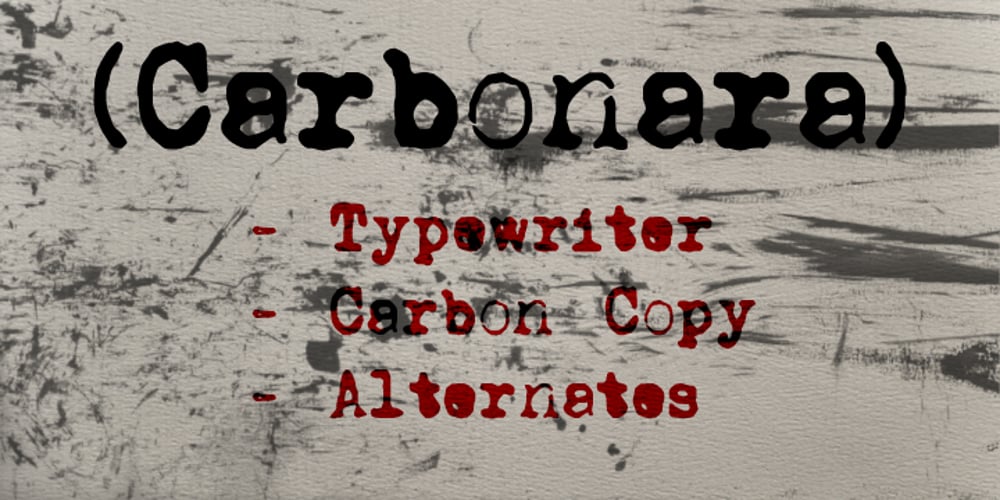
Carbonara Font Family was designed by David Kerkhoff and published by Hanoded. Carbonara contains 3 styles and family package options. Carbonara. Nope, it’s not the pasta sauce, but a nice, grungy typewriter font, made using a pre-war typewriter, some oil and a stack of old-fashioned carbon paper sheets. You can use it to give your designs some oomph. Comes with a whole bunch of contextual and stylistic alternates.